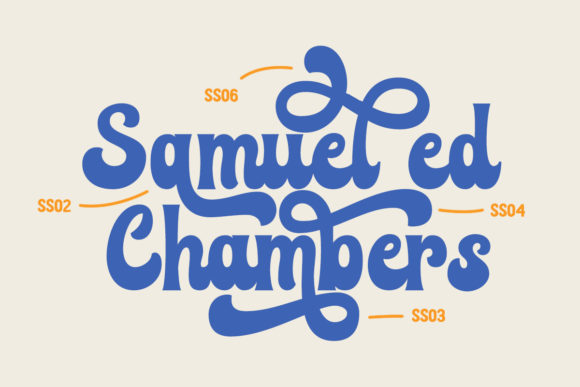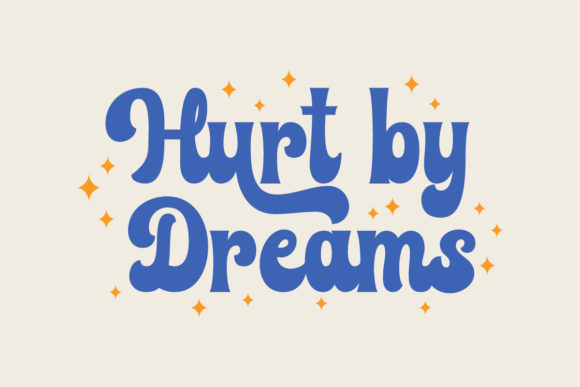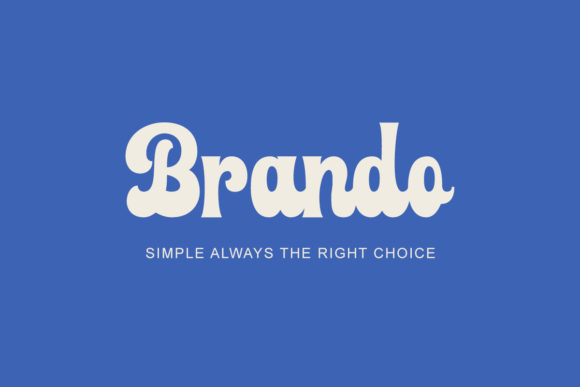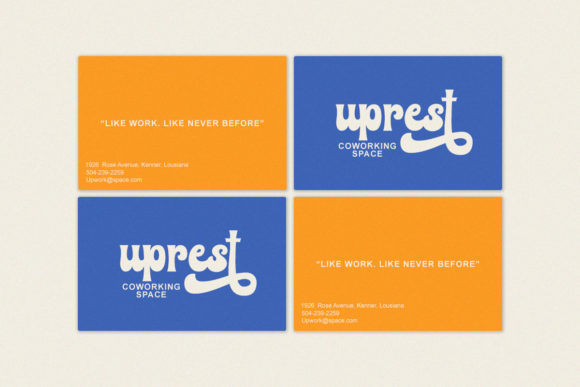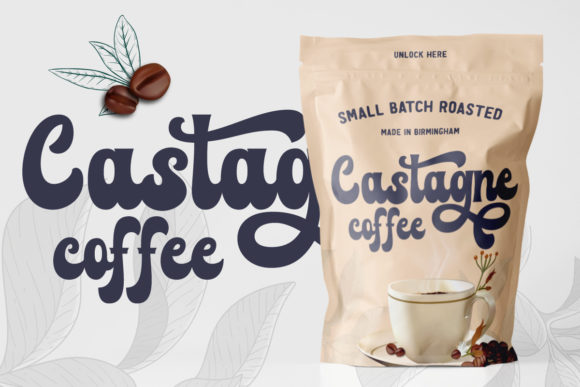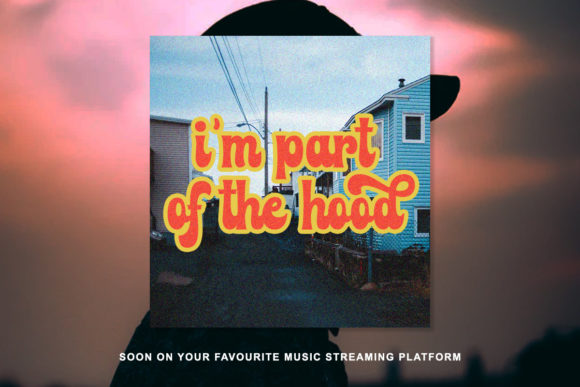
Introducing Farland Font: Elevate Your Designs with a Stylish and Confident Handwritten Font
Are you tired of using the same old fonts for your designs? Do you want to add a touch of personality and uniqueness to your headlines and logotype projects? Look no further than Farland Font, a gorgeous and bold handwritten font that’s sure to elevate your designs to the next level.
What Makes Farland Font So Special?
Farland Font is a carefully crafted handwritten font that’s designed to give your designs a stylish and confident look. With its bold and dynamic strokes, this font reads as strong and assured, making it perfect for headlines, logotypes, and any other design project where you want to make a statement.
One of the standout features of Farland Font is its nostalgic character. This font has a classic, timeless feel that’s reminiscent of traditional handwritten fonts from the past. At the same time, it’s modern and fresh, making it perfect for designers who want to create unique and eye-catching designs.
Farland Font is a versatile font that’s perfect for designers and crafters of all levels. Whether you’re working on a branding project, creating a logo, or designing a poster or flyer, this font is sure to add a touch of personality and style to your work.
For designers, Farland Font is a great choice for projects where you want to create a bold and confident look. It’s perfect for headlines, titles, and other design elements where you want to make a statement. And with its nostalgic character, it’s also a great choice for projects where you want to create a vintage or retro look.
For crafters, Farland Font is a great choice for projects where you want to add a personal touch. Whether you’re creating handmade cards, gift tags, or other paper crafts, this font is sure to add a touch of personality and style to your work.
Key Features of Farland Font
So what are the key features of Farland Font that make it so special? Here are just a few:
- Bold and dynamic strokes: Farland Font has bold and dynamic strokes that give it a strong and confident look.
- Nostalgic character: This font has a classic, timeless feel that’s reminiscent of traditional handwritten fonts from the past.
- Versatile: Farland Font is a versatile font that’s perfect for a wide range of design projects, from branding and logos to posters and flyers.
- Easy to read: Despite its bold strokes, Farland Font is easy to read, making it perfect for headlines and other design elements where you want to make a statement.
How to Use Farland Font in Your Designs
So how can you use Farland Font in your designs? Here are a few ideas to get you started:
- Headlines and titles: Use Farland Font for headlines and titles where you want to make a statement.
- Logos and branding: Use Farland Font to create unique and eye-catching logos and branding elements.
- Posters and flyers: Use Farland Font to add a touch of personality and style to your posters and flyers.
- Handmade crafts: Use Farland Font to add a personal touch to your handmade crafts, such as cards, gift tags, and other paper crafts.
In conclusion, Farland Font is a gorgeous and bold handwritten font that’s perfect for designers and crafters who want to add a touch of personality and style to their designs. With its strong and confident strokes, nostalgic character, and versatility, this font is sure to elevate your designs to the next level. So why wait? Try Farland Font today and see the difference it can make in your designs!